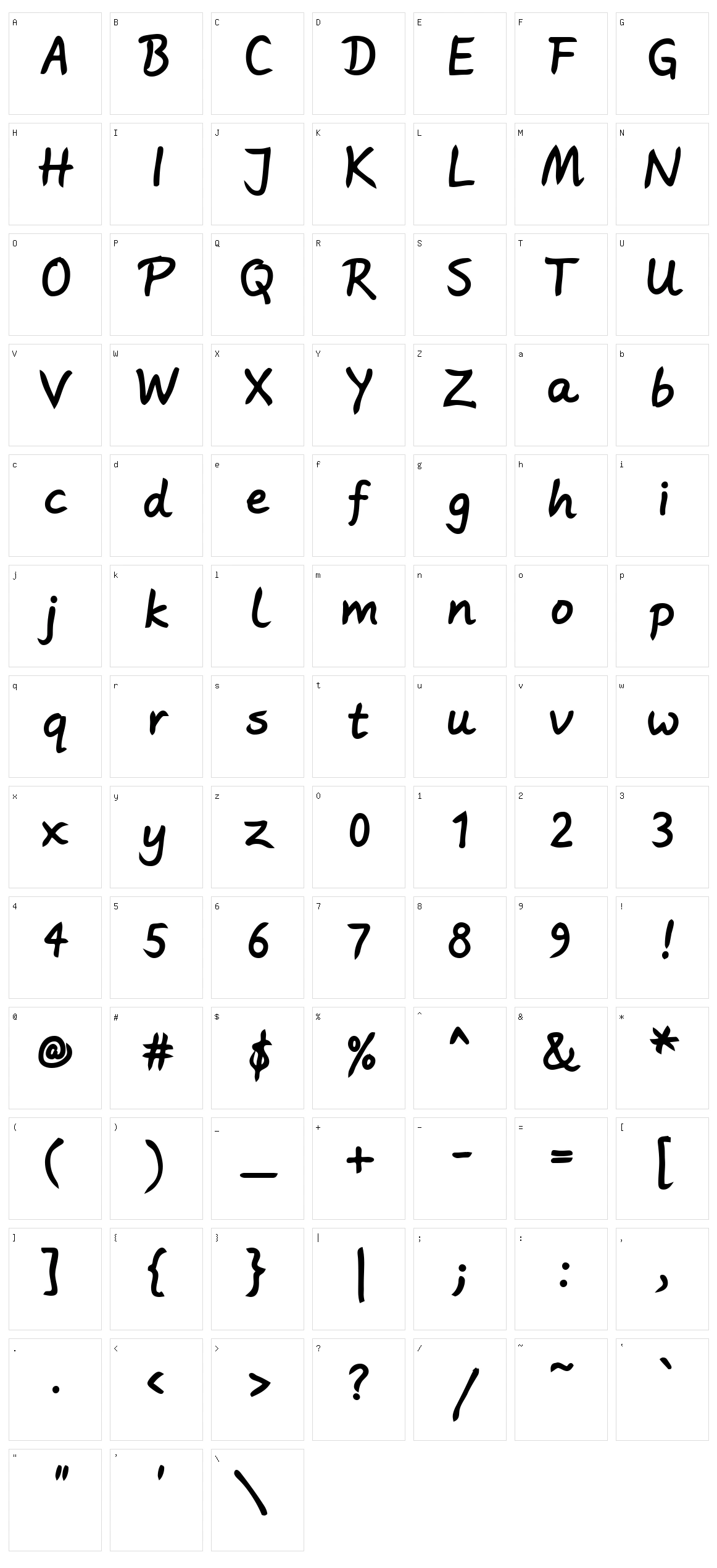
Wortlaut AH
Wortlaut imitates a casual handwriting with printed letters. It does not
look extravagant or constructed or calligraphic, simply a neat and clean
hand for e.g. shopping lists or sticky notes.
For that reason the font is also suitable for longer passages of text,
not only a few words or lines. You might use it for rendering a handwritten
letter within a printed novel.
Wortlaut comes with additional characters for most Eastern and Western
European languages but does not contain Greek or Cyrillic.
It comes in three weights, Regular, Medium and Bold.